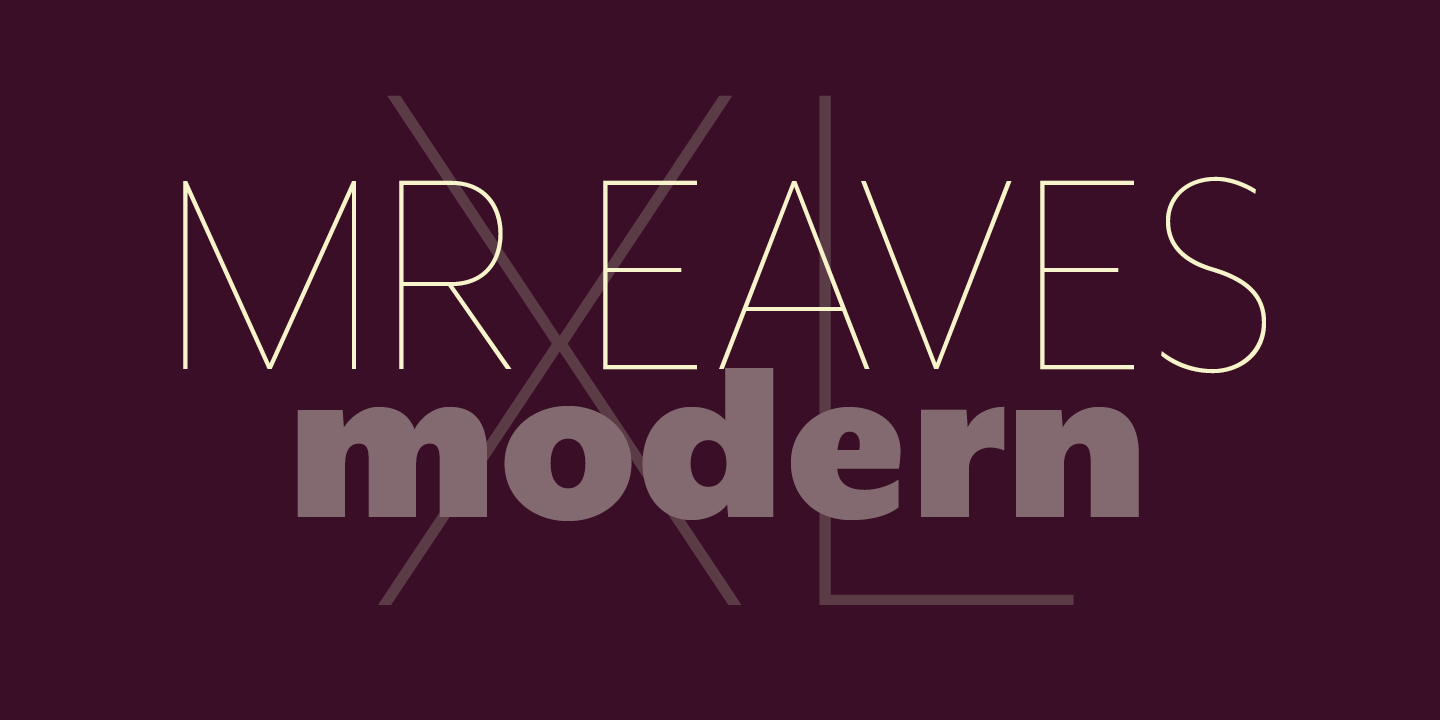
The Mr Eaves XL Modern Font is an outstanding choice for projects that demand a contemporary, minimalist, and highly versatile sans-serif aesthetic with exceptional clarity and a sophisticated personality. It’s perfectly suited for corporate branding, digital interfaces (UI/UX), clean website designs, editorial layouts for modern publications, app development, and any design that requires a sleek, professional, and easily readable typeface. Its robust yet understated character makes it ideal for conveying a sense of innovation, precision, and modern sophistication.
What makes Mr Eaves XL Modern Font so exciting is its impeccable balance of geometric precision and optimal legibility, combined with a subtly distinctive human touch that gives it warmth. The "XL" often signifies a larger x-height, which significantly enhances readability, particularly on screens and in dense text blocks. It features crisp lines and perfectly balanced letterforms that ensure outstanding clarity across various applications, from commanding headlines to extensive body text. This font carries a sense of unpretentious professionalism and efficiency, making your content appear streamlined and trustworthy. It's a true workhorse typeface that provides a solid, unobtrusive foundation for any typographic system, allowing your message to shine through with absolute clarity and a contemporary appeal. Its versatility means it excels in both digital and print environments, maintaining its sophisticated presence.
The Mr Eaves XL Modern Font family is typically comprehensive, offering a wide array of weights and styles to provide maximum flexibility for designers. You can expect a full spectrum from Hairline and Thin to Light, Regular, Medium, SemiBold, Bold, and often ExtraBold or Black, accompanied by complementary italic versions for each weight. This broad family allows for sophisticated typographic hierarchies, enabling precise control over emphasis, flow, and visual balance within your designs. Some versions might also include condensed or expanded styles, specialized numerals, or other OpenType features to further enhance its utility.
Whether you're developing a cutting-edge digital platform, designing a sleek corporate identity, or crafting a visually compelling annual report, the Mr Eaves XL Modern Font Free Download offers an indispensable tool. Its contemporary aesthetic and robust functionality make it a premier choice for any project that requires a clean, elegant, and highly effective typeface.